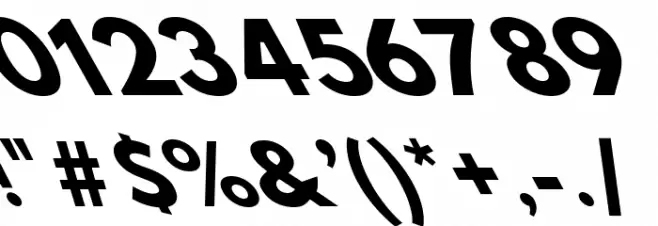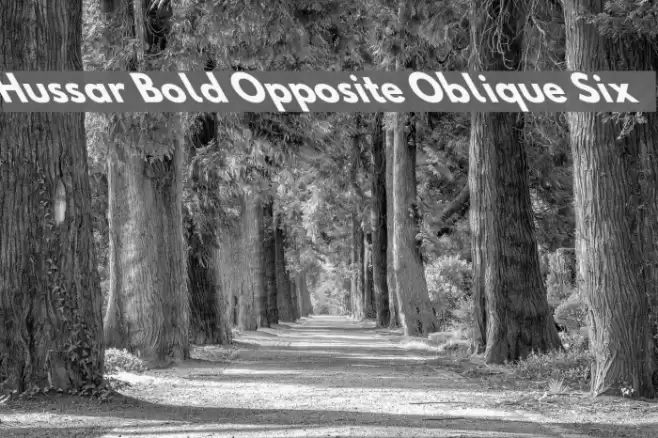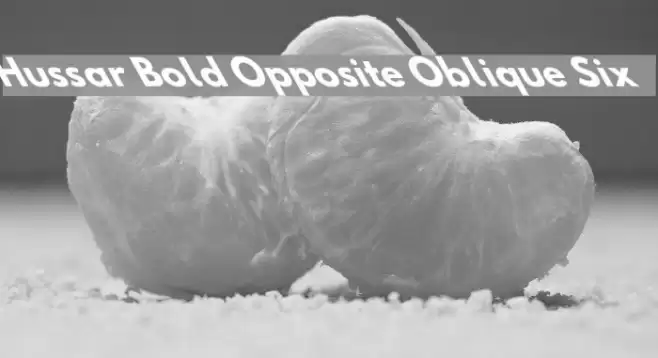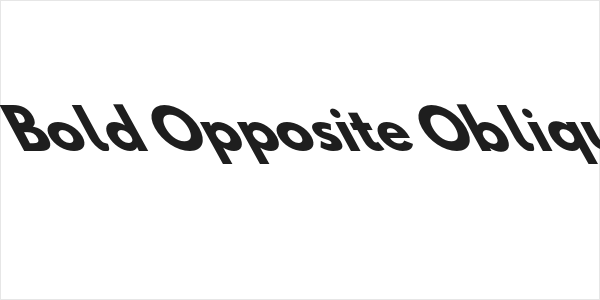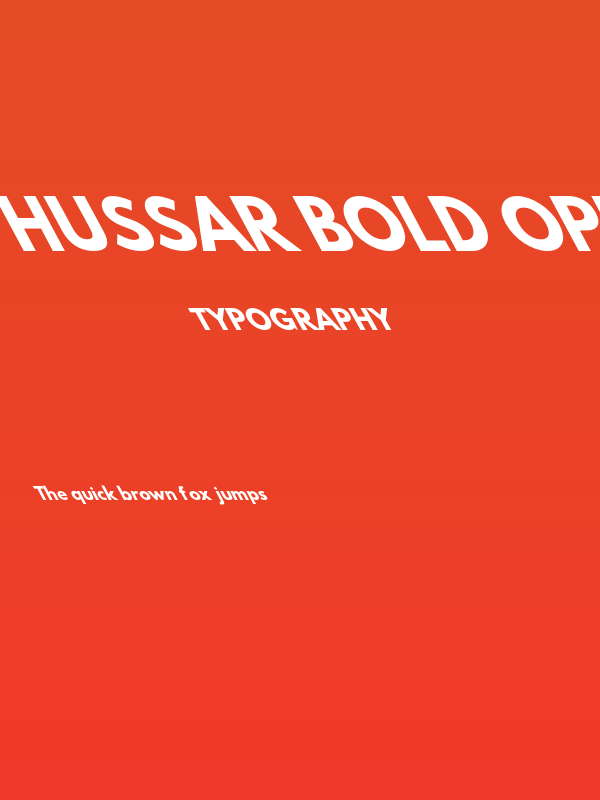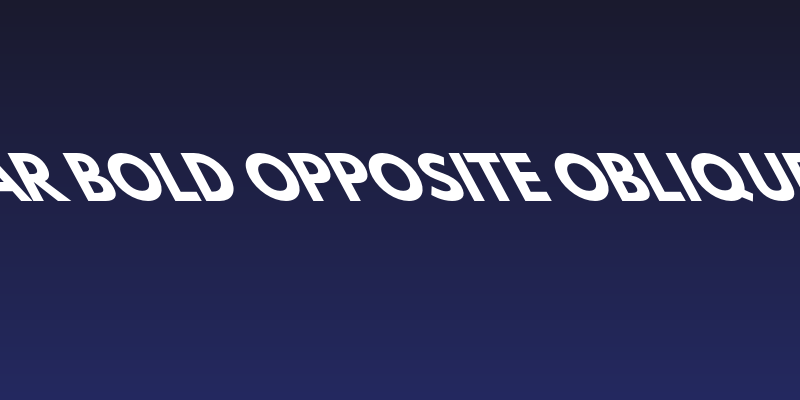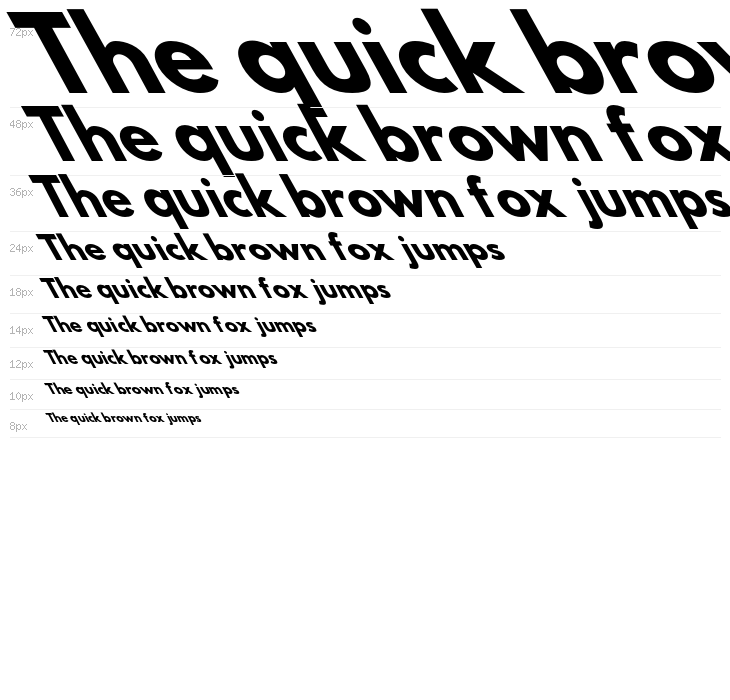
Hussar Bold Opposite Oblique Six Font
Hussar Bold Opposite Oblique Six Description
This font exhibits a bold and dynamic style with a distinct oblique slant, giving it a sense of movement and energy. The characters are thick and robust, with a strong presence that commands attention. The uppercase and lowercase letters maintain a consistent slant, enhancing the font's cohesive appearance. The numerals and special characters follow the same design principles, ensuring uniformity across all glyphs. The strokes are uniform in thickness, contributing to a low contrast appearance. This font's boldness and slant make it ideal for impactful and eye-catching designs.
| Proposed Projects | Ideal for headlines, posters, branding, and any project requiring a bold, attention-grabbing typeface. |